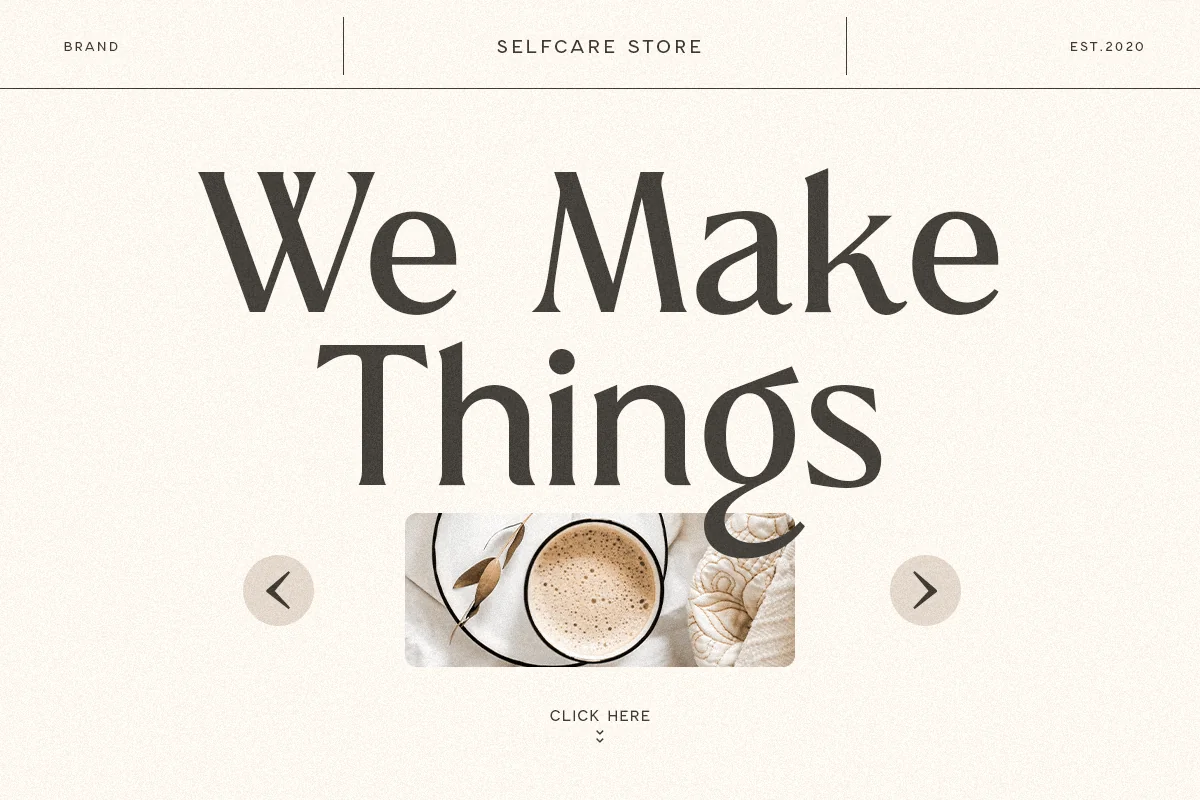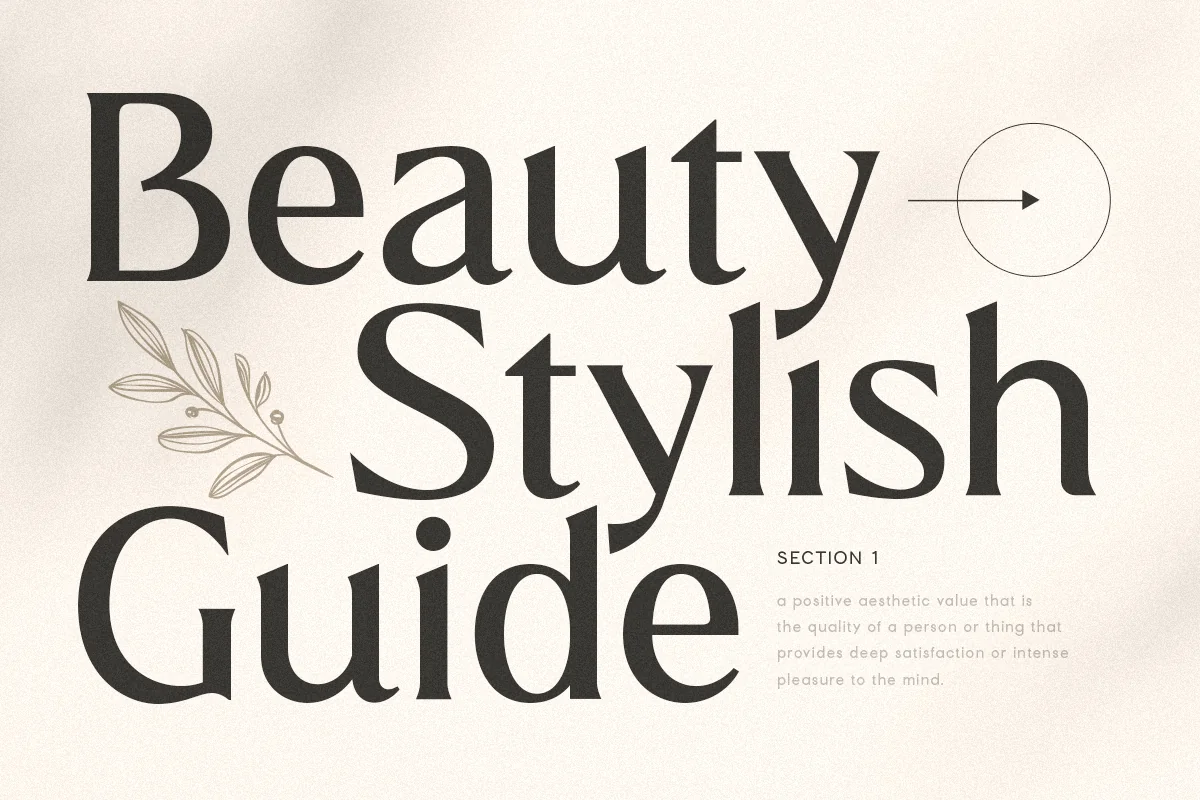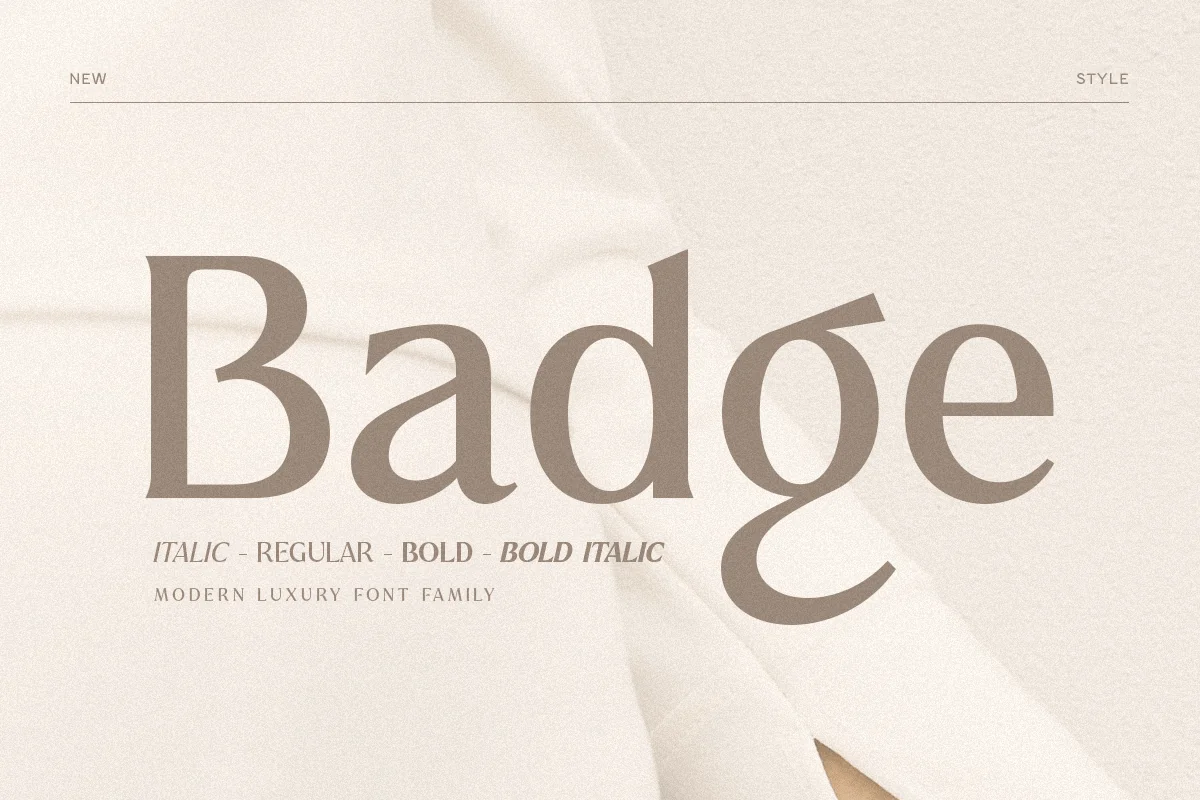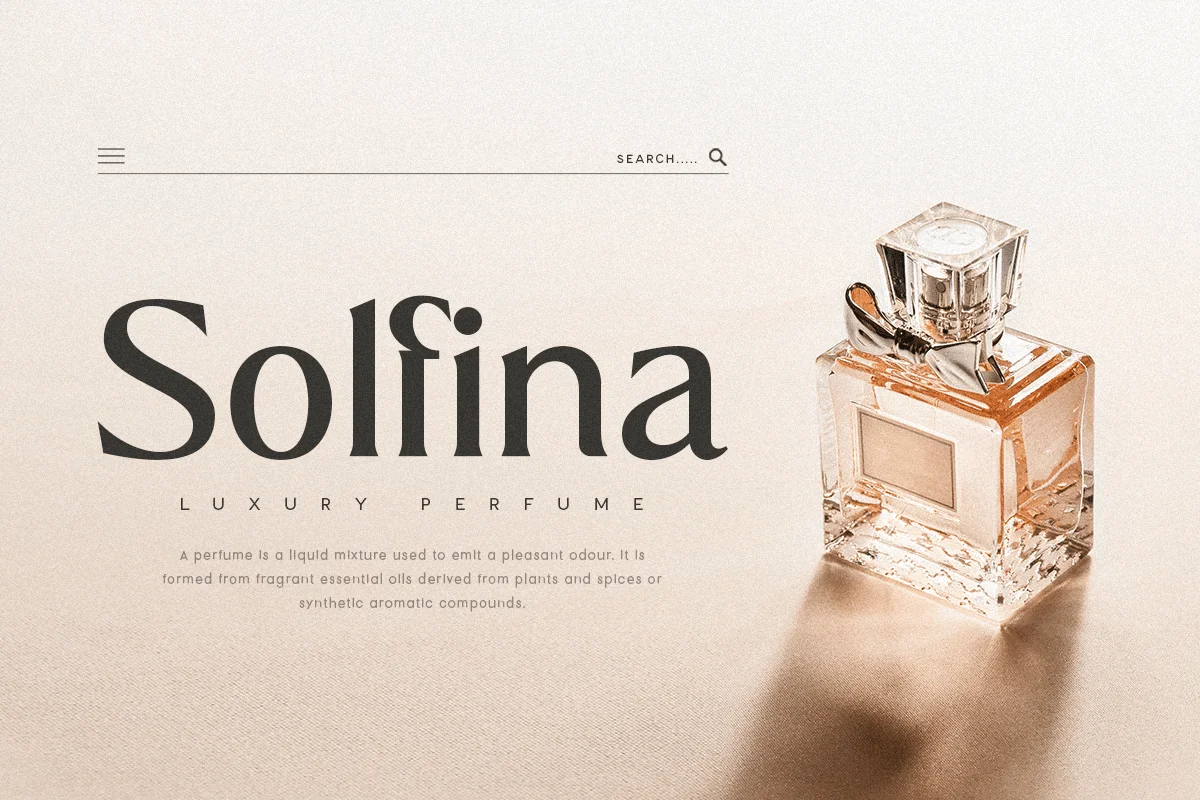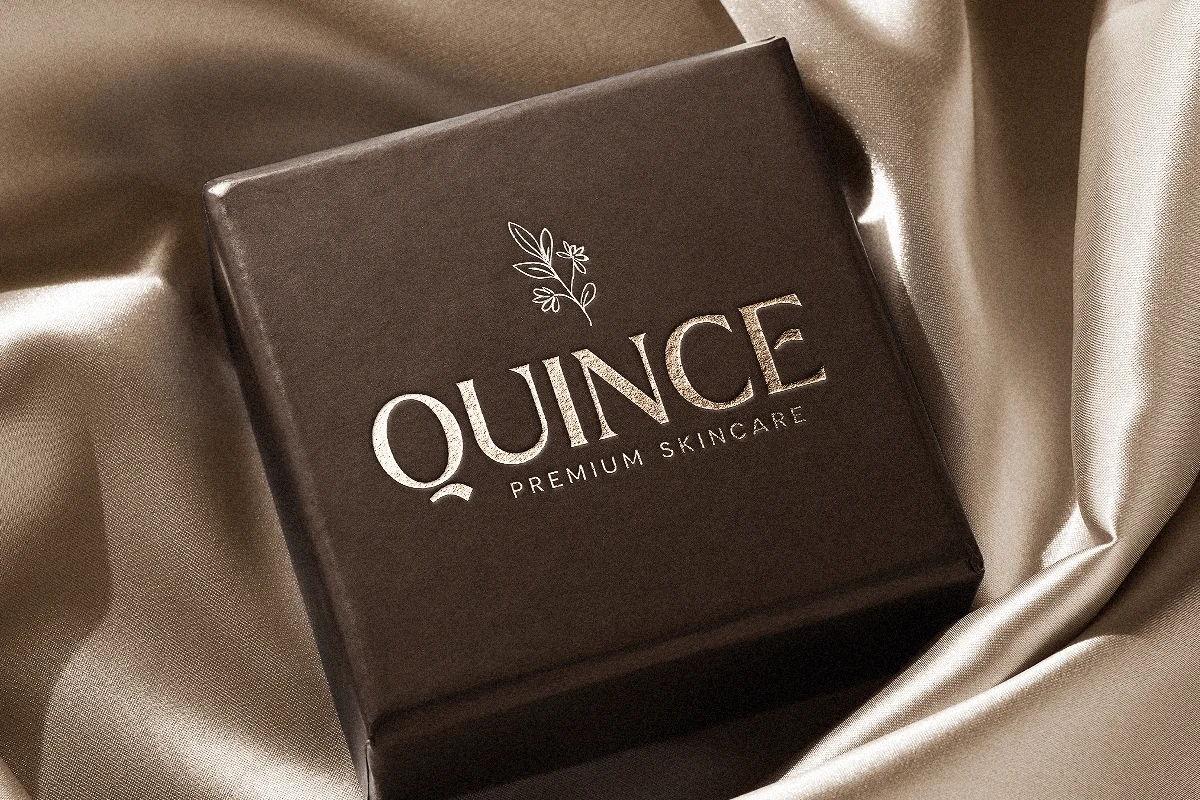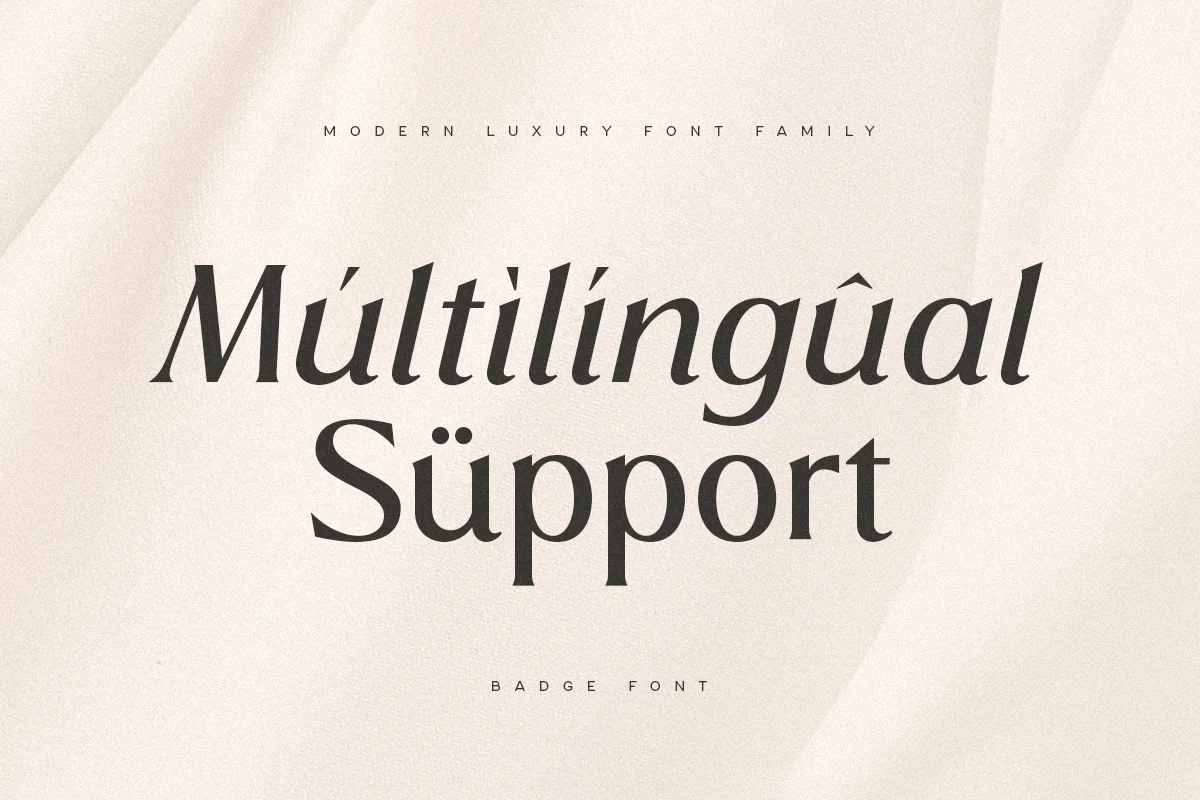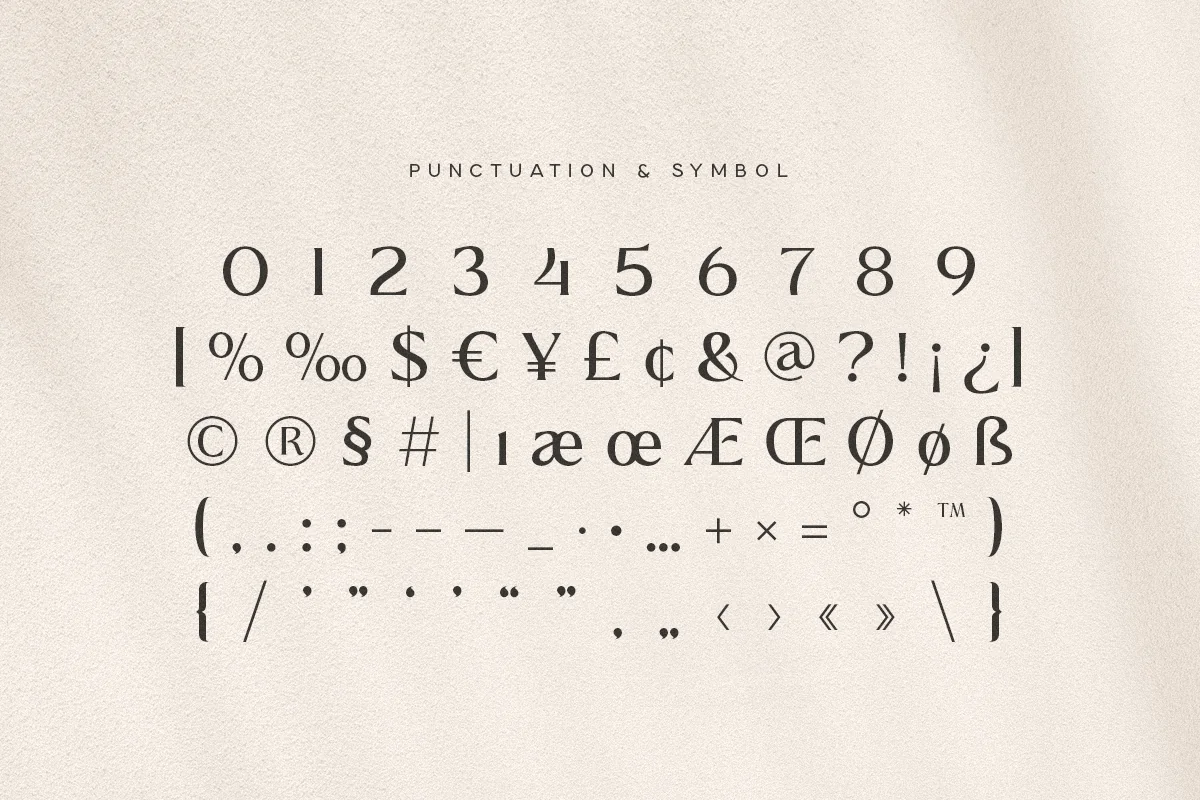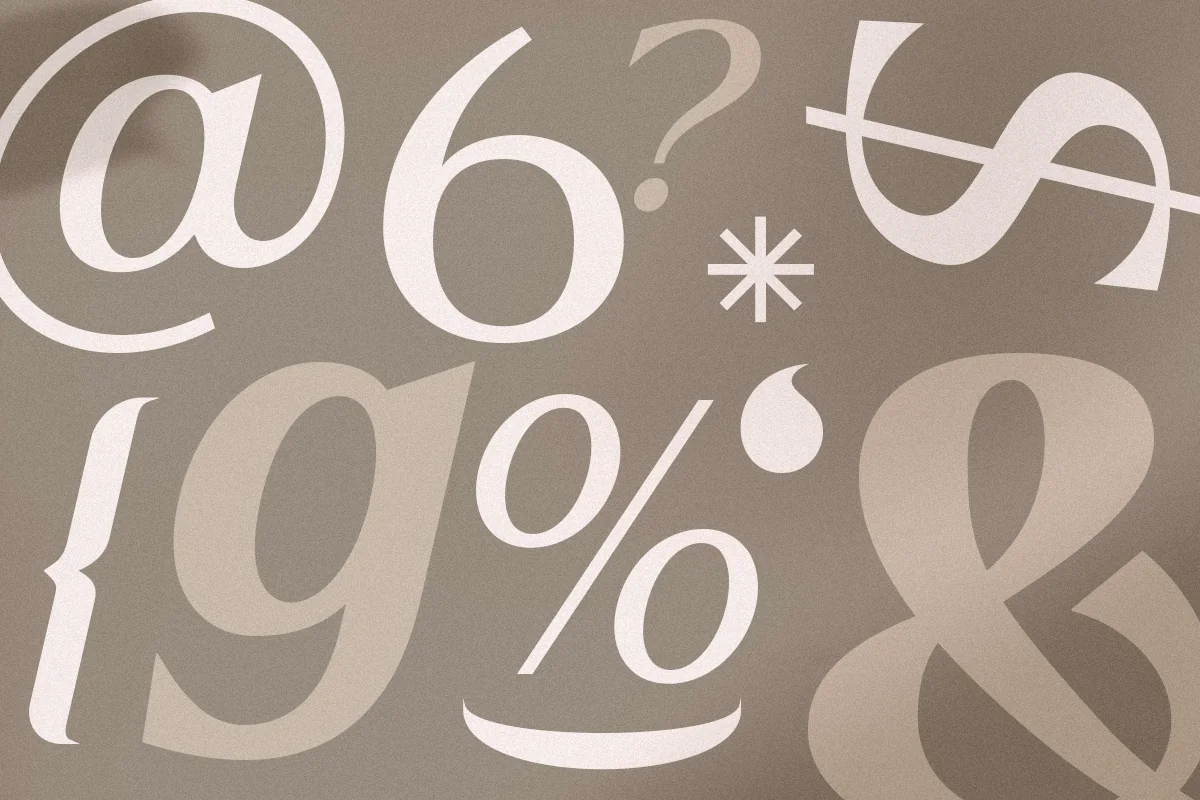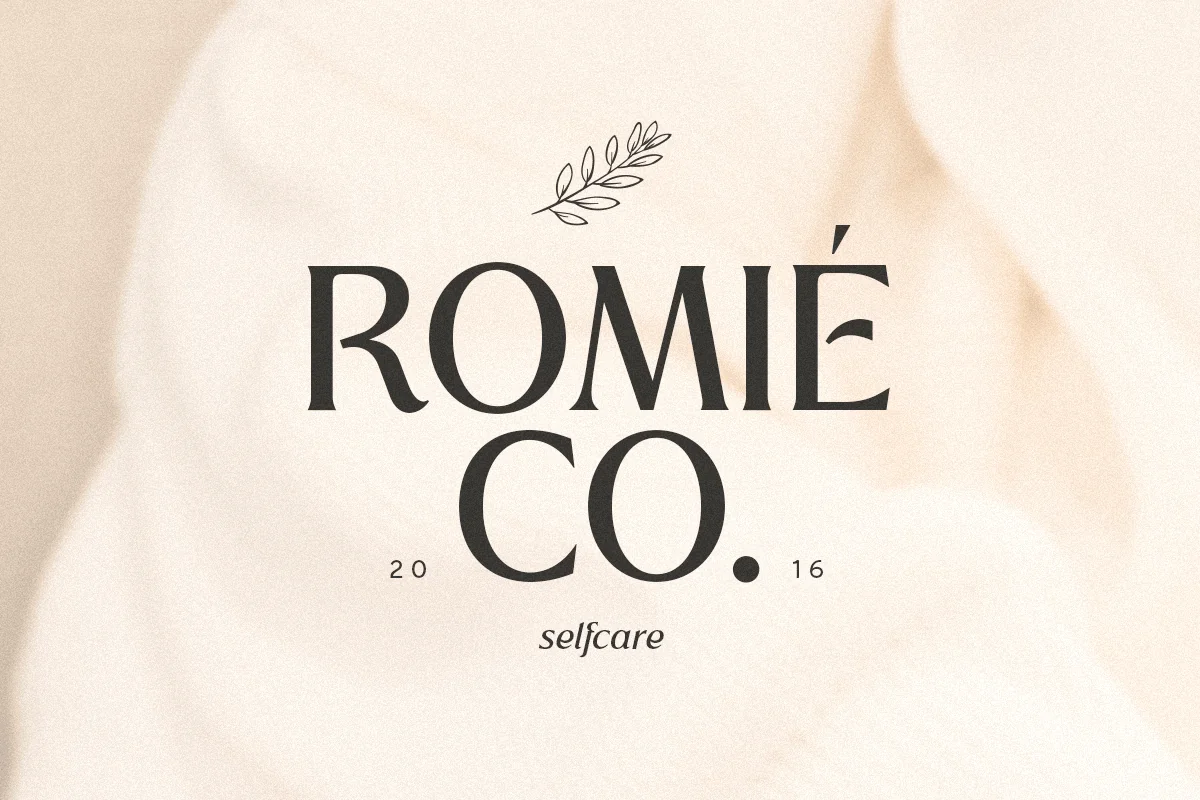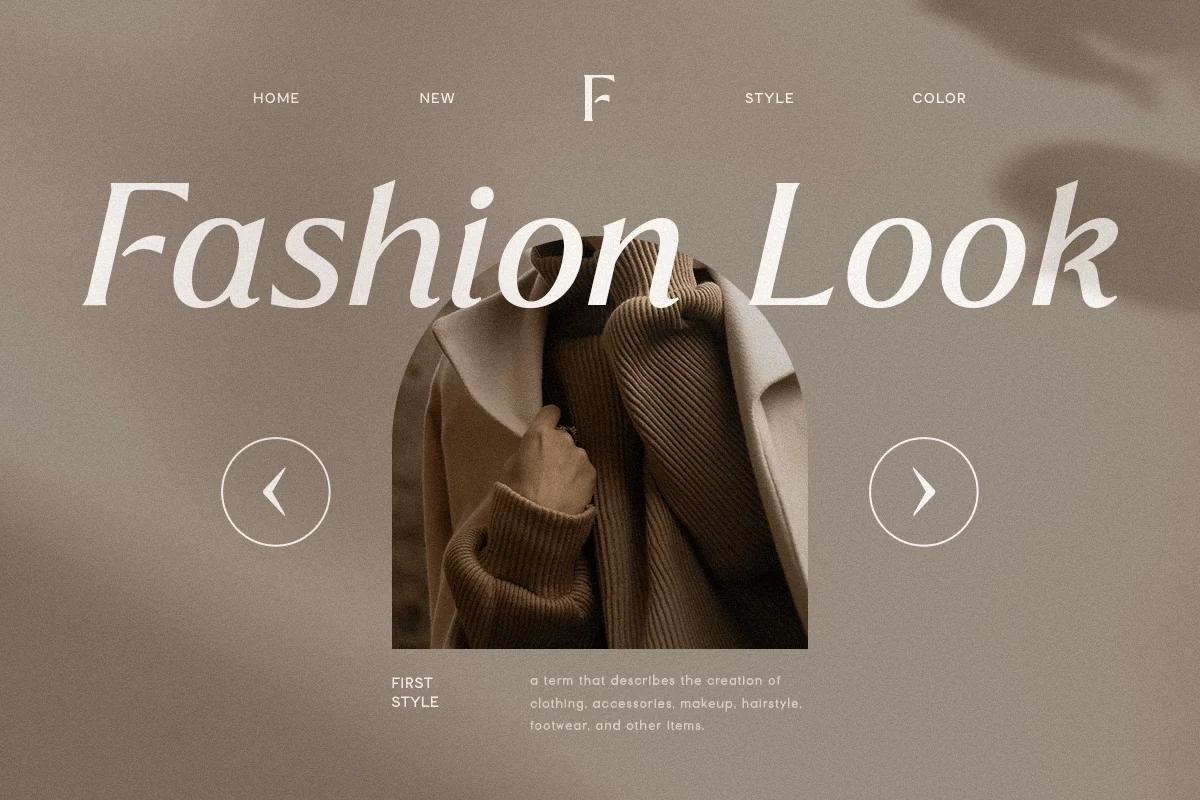
Badge – Modern Luxury Font Family
A Serif font that we created special for luxury branding needs, with extra weights and Italic version in unique shape will be ready to add value of your brand. It so nice to leverage designer or product owner that need solutions to make their design look more Luxury and modern. And specially for Luxury font, We prepared any unique characters to help you create unlimited variations for your creative needs.
Badge Modern Luxury Font Family ready with:
- Any options to get unique creative characters
- Preview as a inspirations that you can do with Badge font
- Ready with Lowercase and Uppercase characters